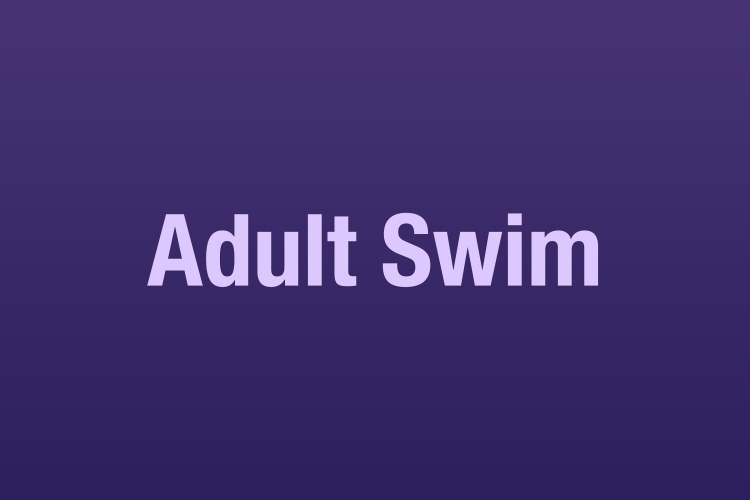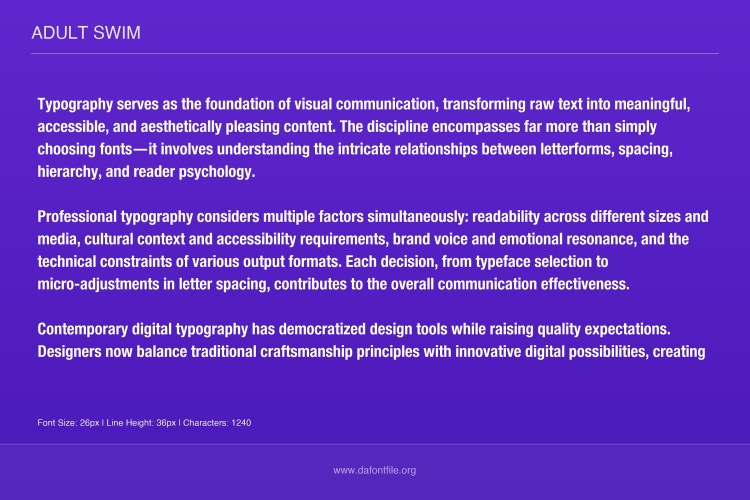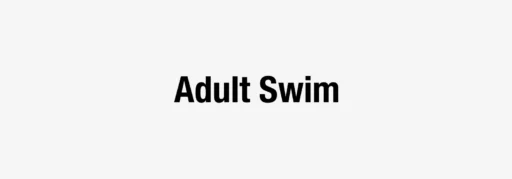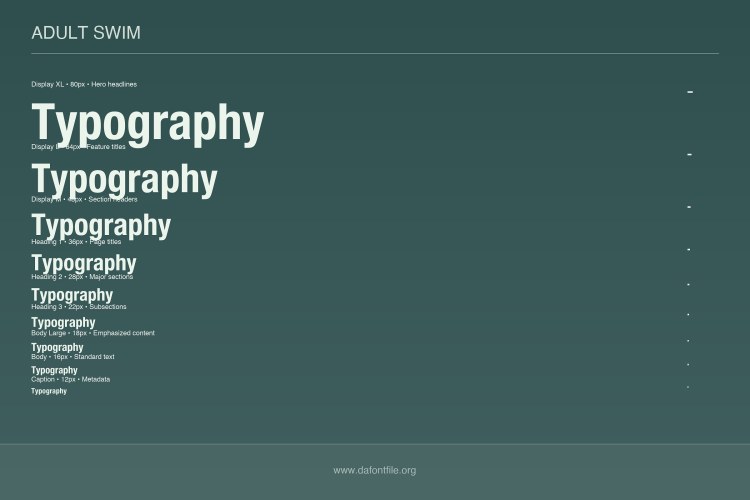
Adult Swim Font
Adult Swim takes its bold sans-serif style from the logo of the famous TV network. Its sharp lines and strong shapes create a modern and edgy look in text. Designers choose this font when they want their work to stand out with confidence and impact.
Where Adult Swim Font works best
Adult Swim Font stays legible at small sizes, which makes it a strong choice for navigation, buttons and dashboards in web design and app interfaces.
Clean sans serifs like Adult Swim Font are the default language of SaaS, fintech and product branding.
What is Adult Swim Font good for?
Adult Swim Font is a Sans Serif Fonts typeface tagged Bold, Branding, Modern, Sans Serif. It works well for headlines, logos, posters, social media graphics and branding projects that need a distinctive sans serif fonts look.